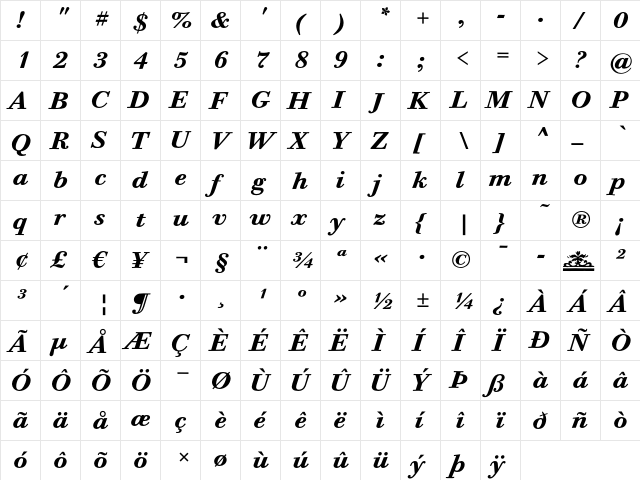
Bodoni Six ITC Bold Italic
Design Context for Bodoni Six ITC Typeface
Bodoni Six ITC is a composed and adaptable typeface that performs quietly and consistently across a wide range of design contexts. The dynamic lean of this cut emphasises speed and emphasis in any layout. Its bold stroke weight gives it real presence on the page.
Pro Tip: Try Bodoni Six ITC for annotation and caption copy alongside an upright companion — the contrast in angle creates a dynamic but ordered typographic system.